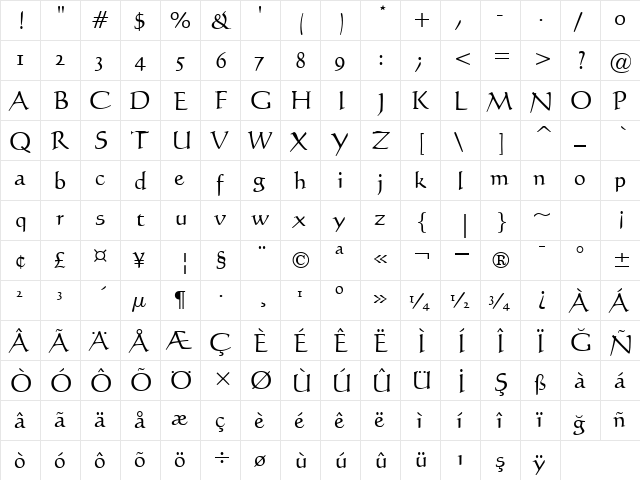
00580 Regular
Design Context for 00580 Typeface
00580 offers clean, dependable letterforms without strong stylistic allegiance, making it a practical choice for designers who need flexibility.